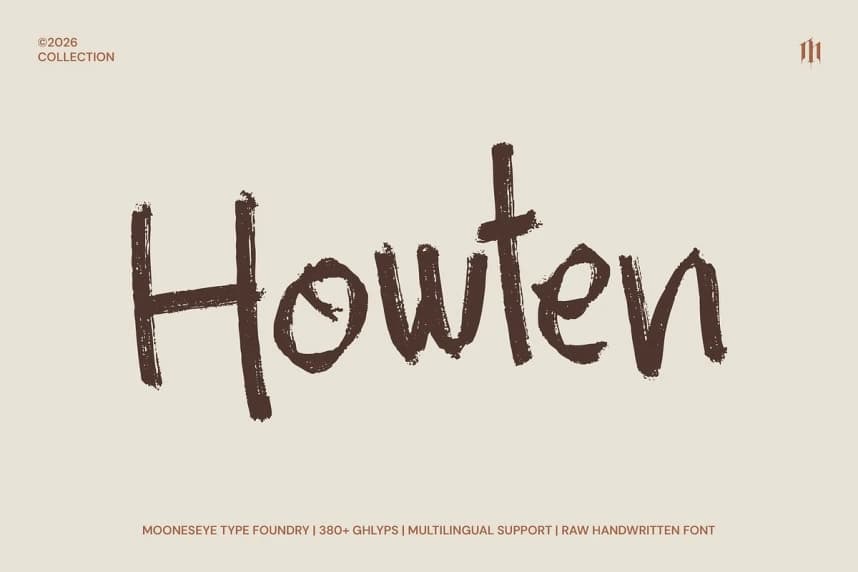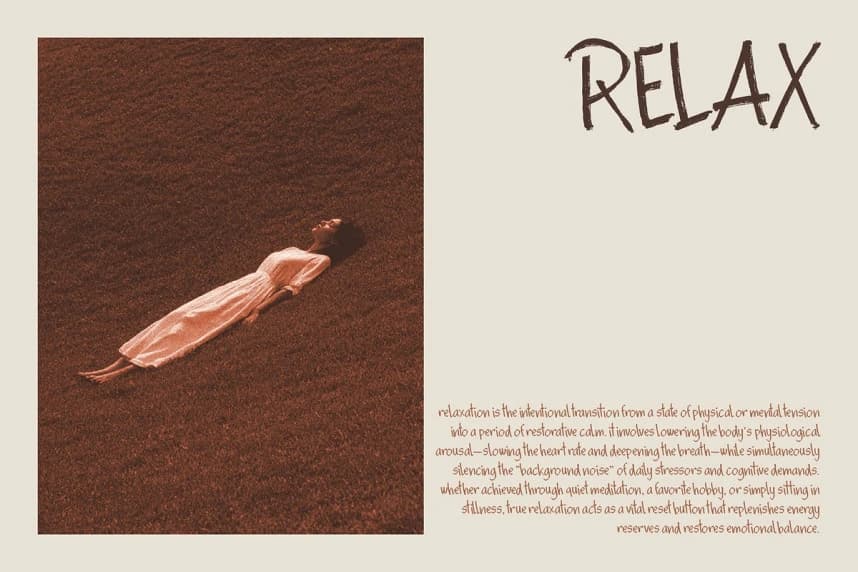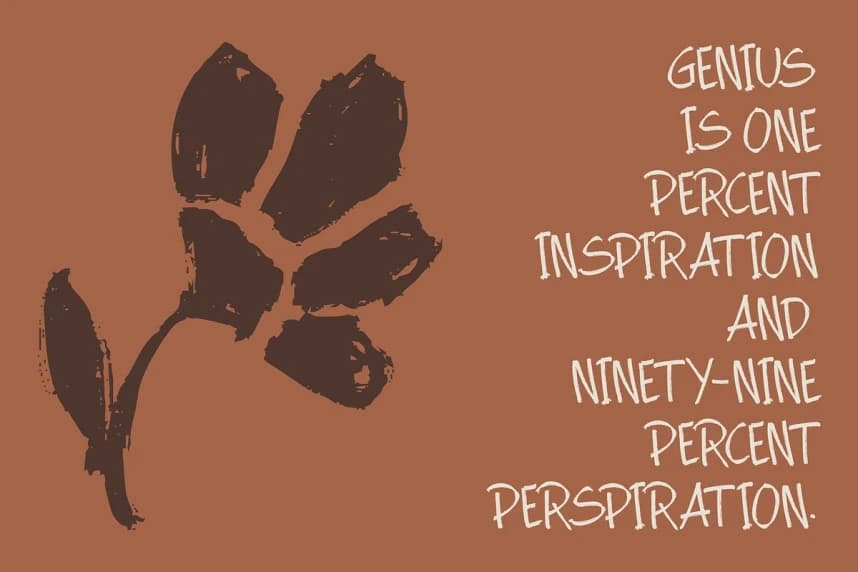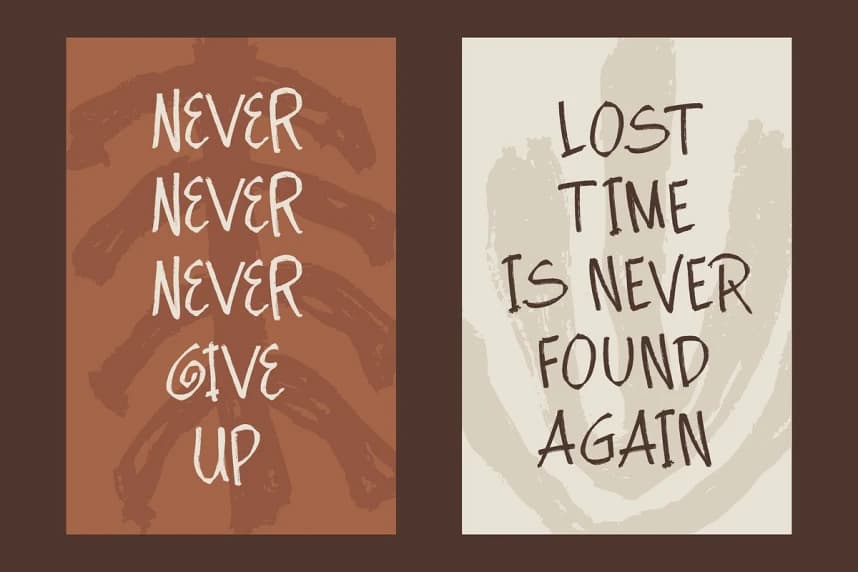
Howten Brush Font
Howten Brush Font isn’t just another typeface; it’s a captured moment of ink meeting paper. With its raw, gritty texture and tall, sophisticated silhouette, it breaks away from the cold perfection of standard fonts to offer something deeply personal and authentic.